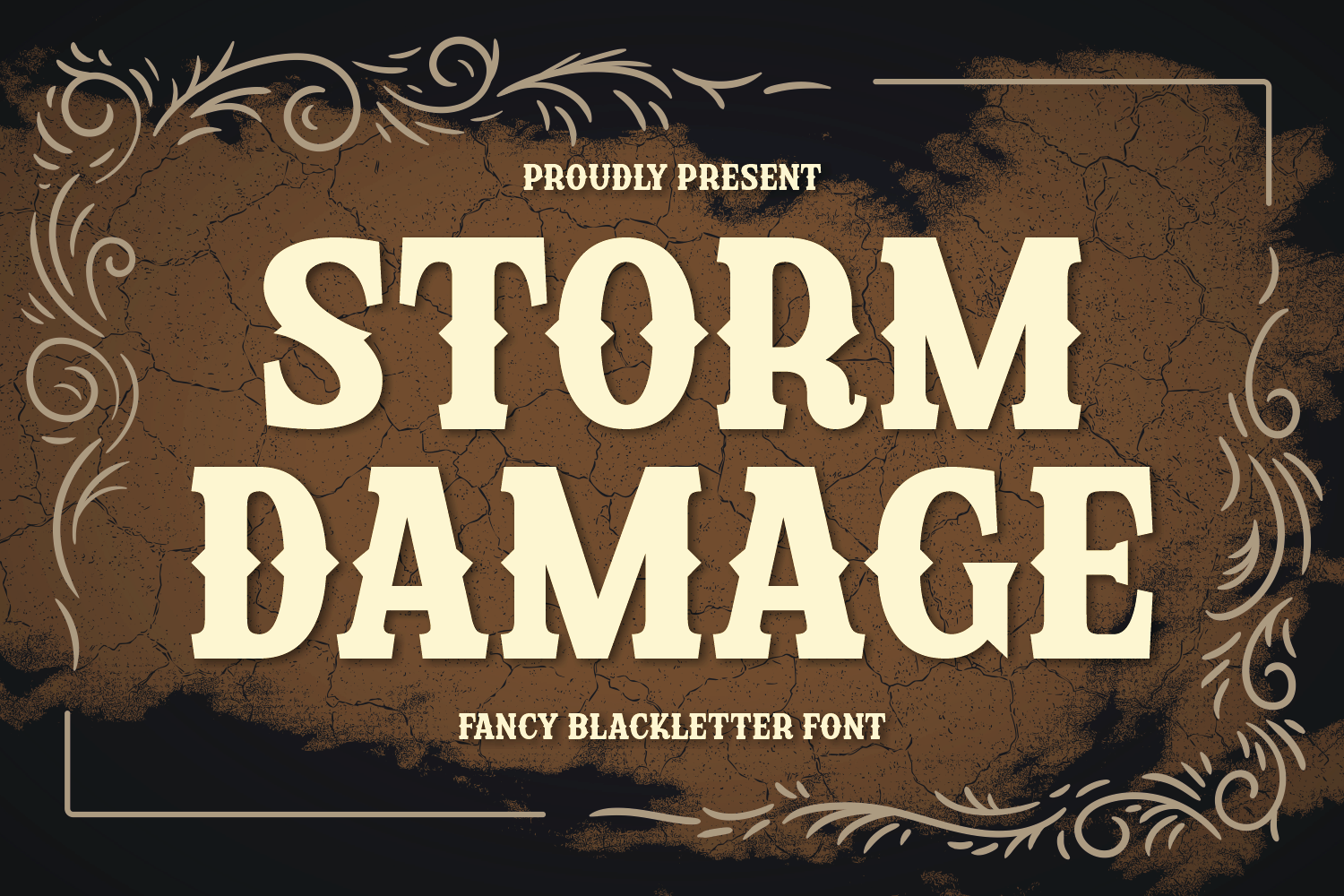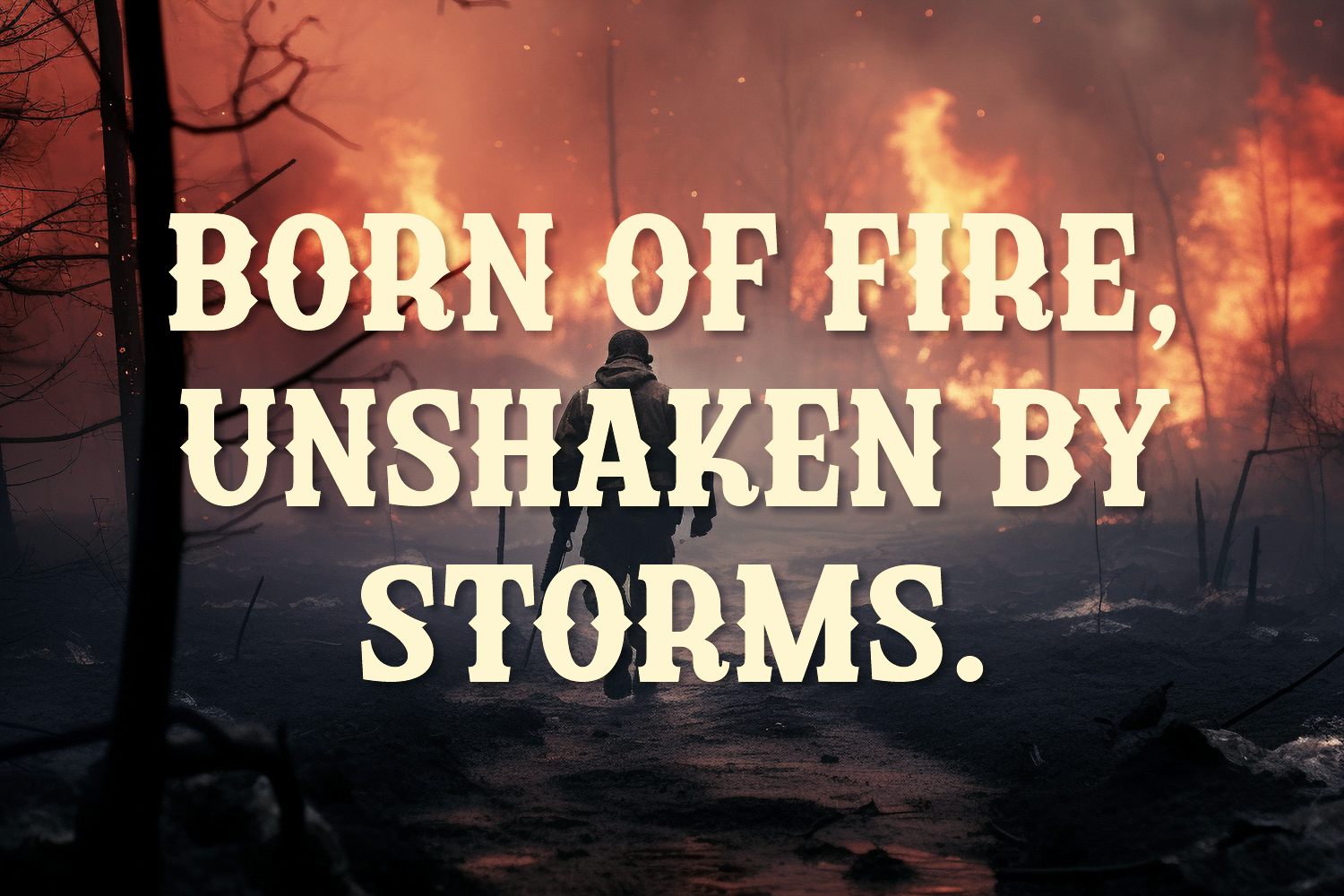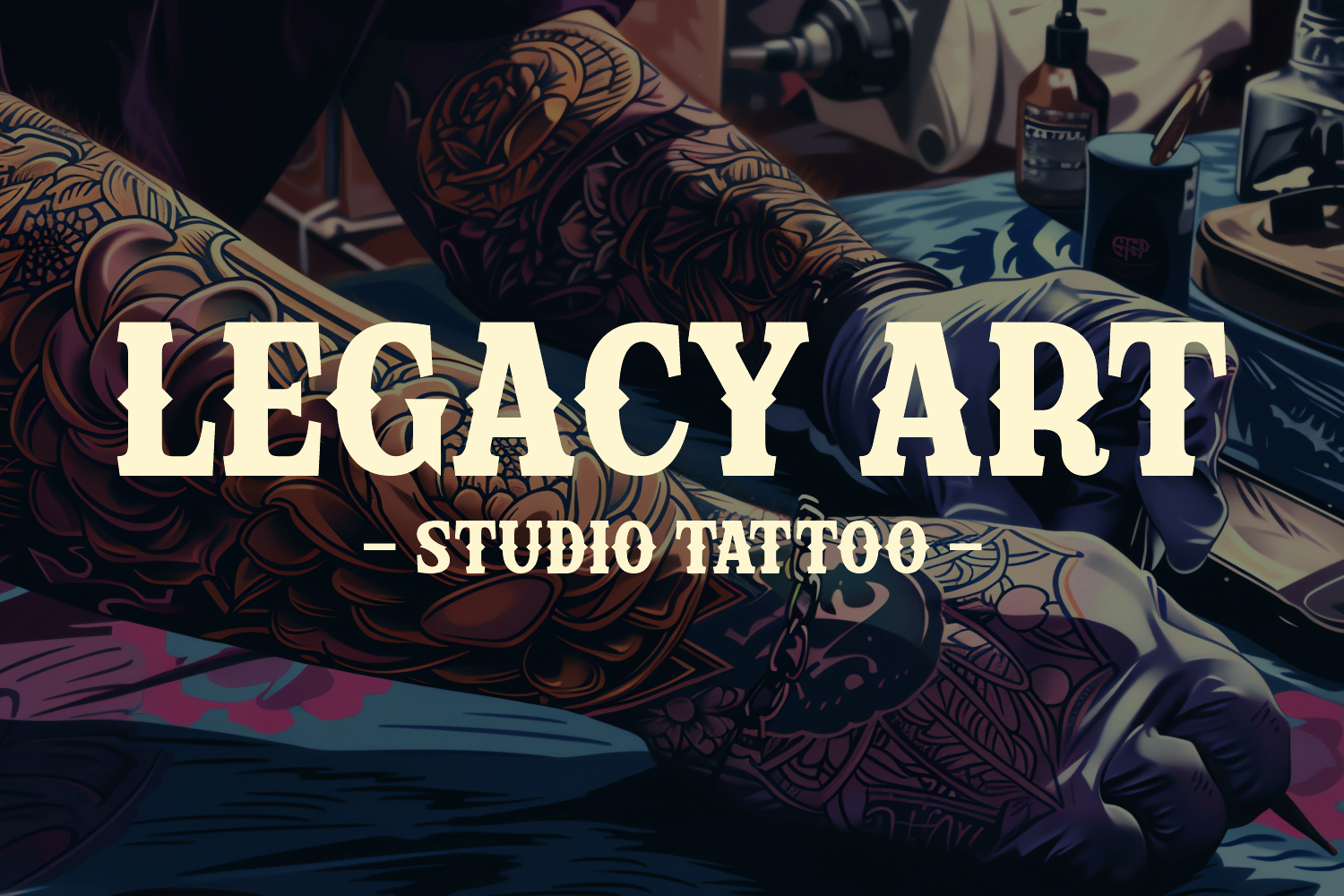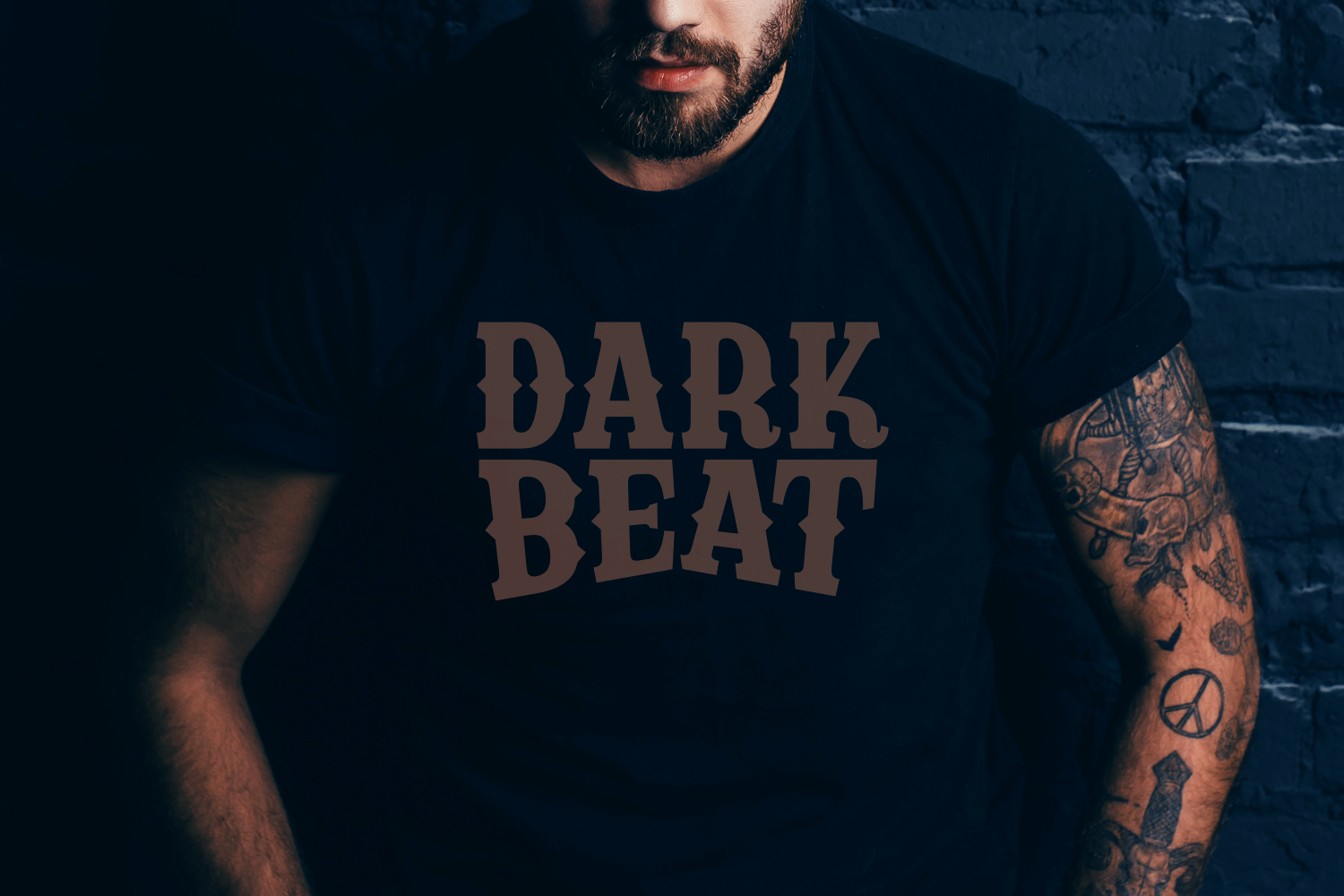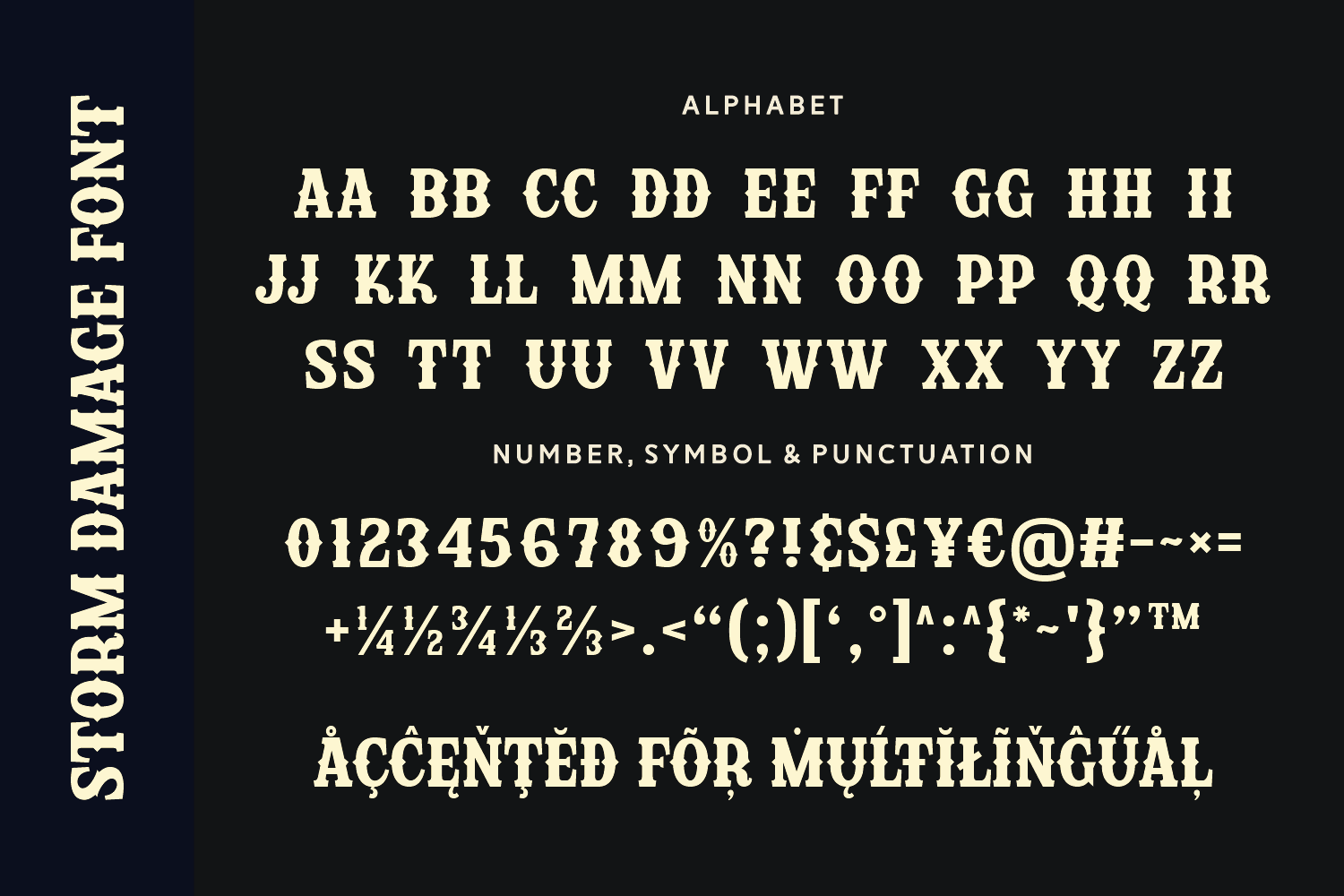
Storm Damage is a rugged blackletter font with distressed textures and bold western vibes. Great for gritty branding, rustic posters, and vintage-inspired packaging.